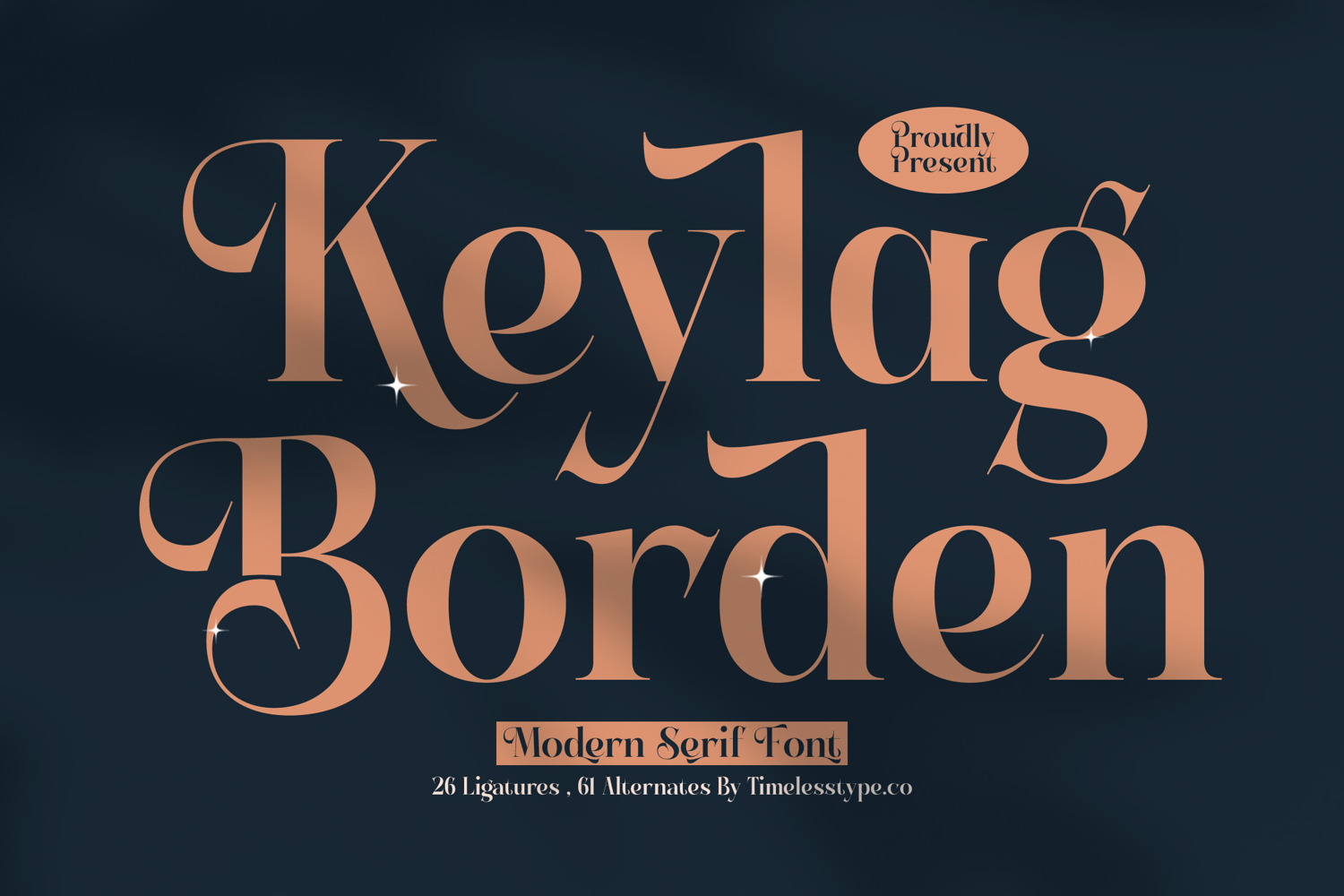
Keylag Borden - Modern Serif Font
Unleash unparalleled elegance and sophistication with Keylag Borden - Modern Serif Font. This exquisite typeface masterfully blends classic serif charm with a contemporary aesthetic, creating a visually striking presence. Its distinctive high-contrast strokes and graceful curves radiate timeless appeal, ensuring your designs capture immediate attention. Keylag Borden - Modern Serif Font is meticulously crafted to imbue every word with a sense of refined artistry.
Elevate your creative projects with an extraordinary degree of customization and artistic flair. Keylag Borden - Modern Serif Font boasts an impressive collection of 26 ligatures and 61 alternate characters, offering unparalleled stylistic versatility. These rich typographic features allow designers to craft truly unique headlines, logos, and body text, transforming ordinary copy into extraordinary visual statements. The thoughtful design ensures seamless integration and impeccable readability.